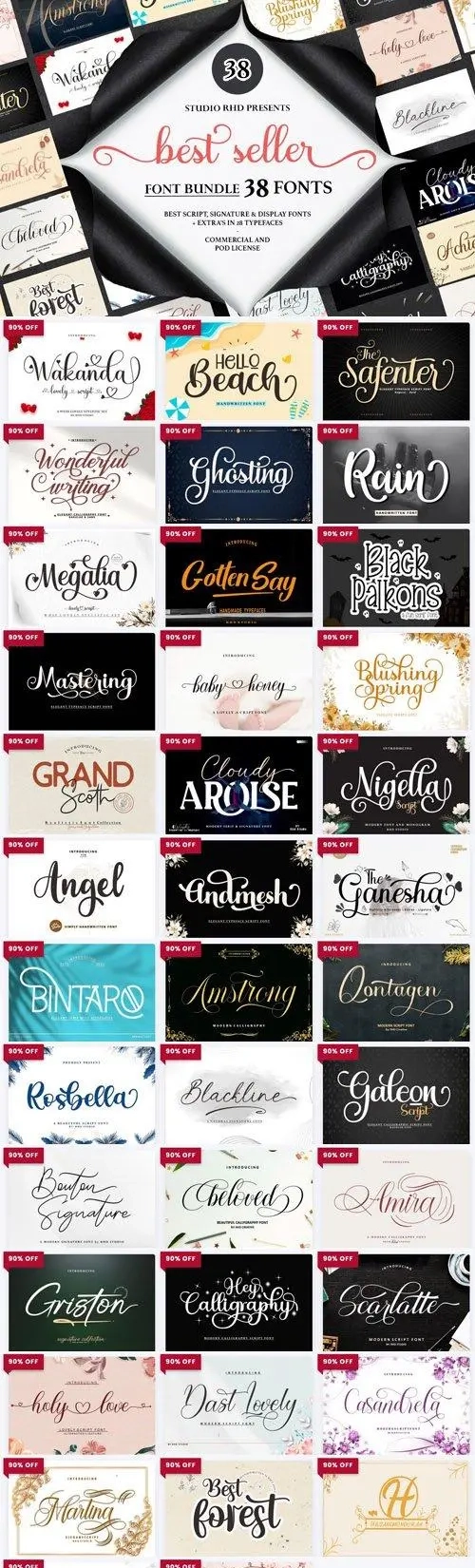
The Best Seller Font Bundle – 38 Premium Fonts
Introducing the Best Seller Font Bundle, a carefully curated collection featuring 38 premium fonts designed to elevate your creative projects. This bundle includes a diverse range of font styles, from elegant serifs to modern sans-serifs, ensuring you have the perfect typeface for any occasion.
• 38 unique premium fonts
• Variety of styles: serif, sans-serif, script, and display
• Multiple weights and styles available for each font
Each font in this bundle is meticulously crafted, providing excellent legibility and aesthetic appeal. The fonts are suitable for both print and digital applications, making them ideal for branding, logos, websites, and user interfaces.